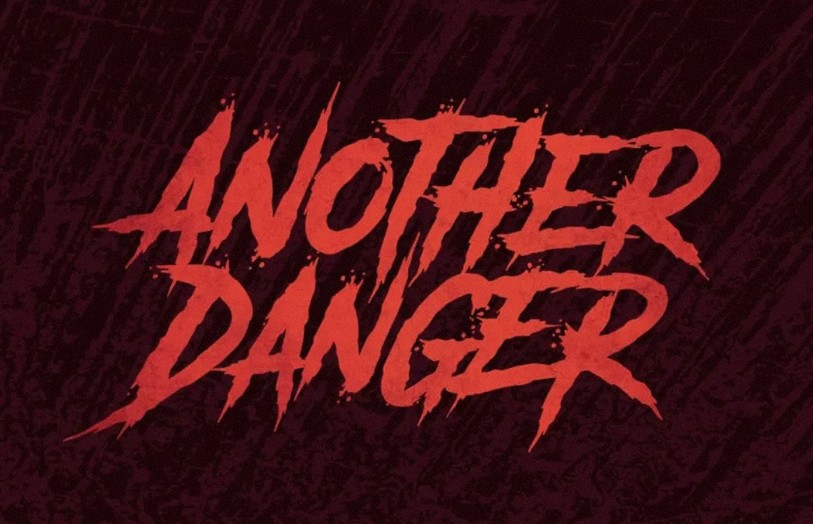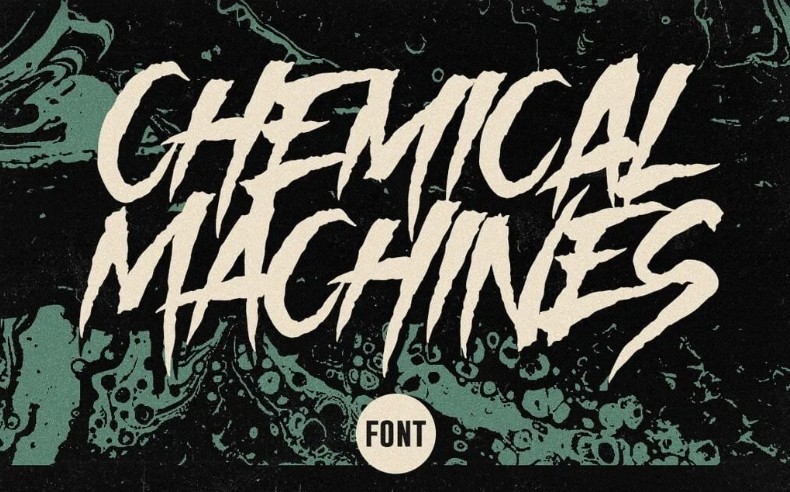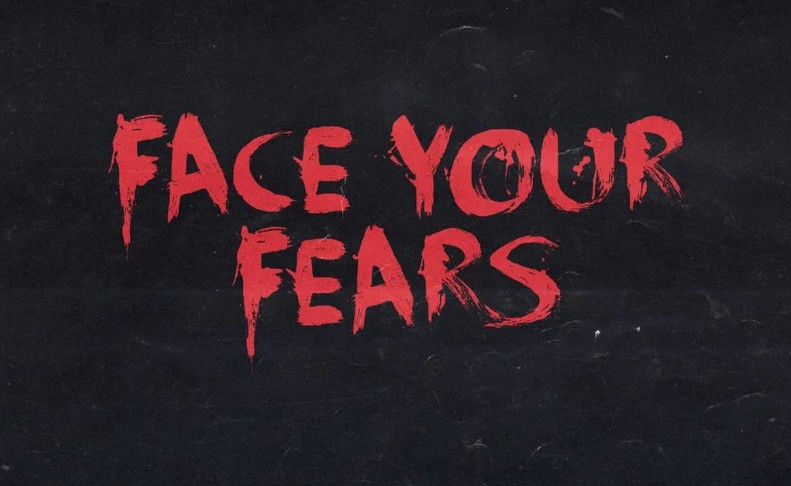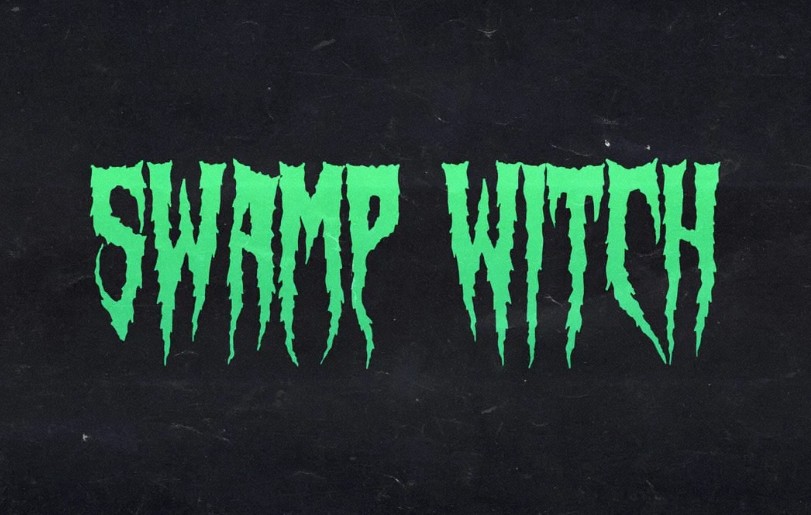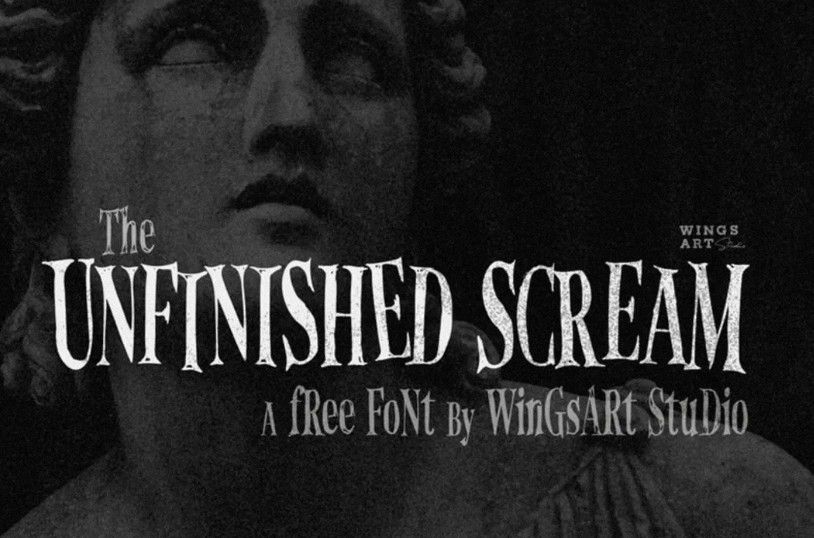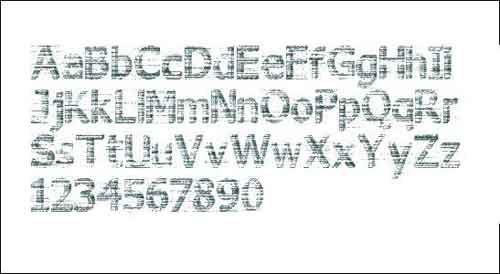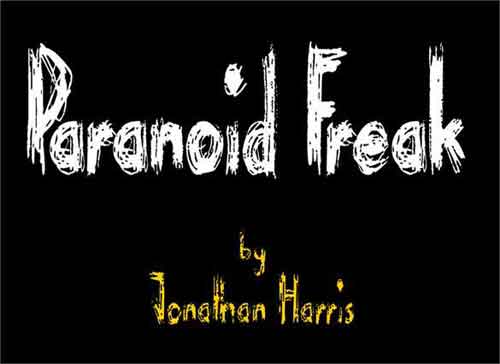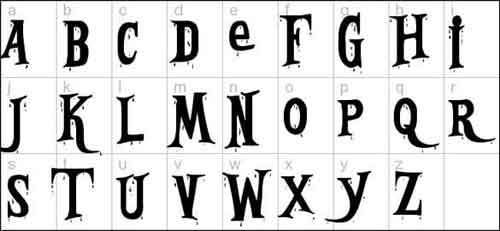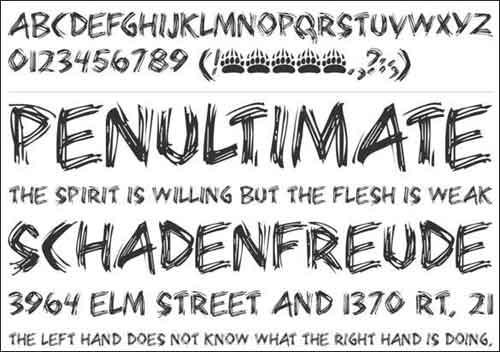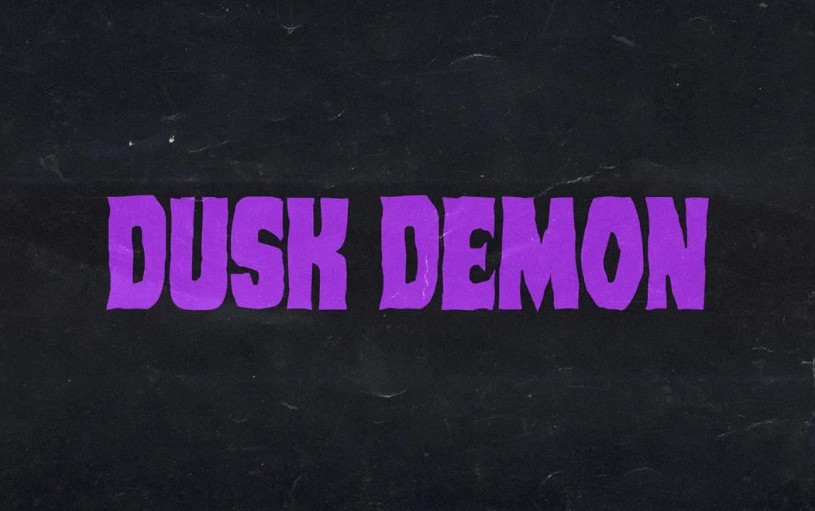
As the autumn season approaches, it’s the perfect time to get creative with your Halloween-themed designs! To make your life easier, we’ve curated a collection of 17 free Halloween fonts that are spooky, fun, and ready to elevate your seasonal projects.
Halloween fonts are essential for adding a creepy, festive touch to your designs. Whether you’re working on party invitations, flyers, posters, labels, or menus, the right typeface sets the mood and instantly communicates the Halloween spirit. From haunted handwritten styles to bold, horror-inspired typefaces, these fonts bring eerie charm and creative flair to your work.
• Combine spooky fonts with textured backgrounds or illustrations to enhance the overall design
1. Spooky Party Club Font
2. CF Haunted House Font
3. Paranoid Freak Font
4. Sketch Bones Font
5. Burton’s Dreams Font
This Alice in Wonderland font is available for non-commercial purposes only. Create legendary stories with this cute font this Halloween.
6. Death Branch Font
A rough and scary font perfect for your Halloween design this fall.
7. Bleeding Freaks Font
8. DK Mothman Font
A Halloween font with a spooky feel.
9. Bearpaw Font
Grunge font is perfect for headlines.
10. District Font
Grunge-embedded font that looks like a template.
11. Monsters Attack Font
12. Gommogravure Font
“Gommogravure” был создан в ответ на испанский mailartist.  Нарезанные ластики из 12  засечек, деревенские буквы  моноширинного стиля. Все буквы заглавные.
13. I Still Know Font
14. 3D Noise Font
15. D the Hero Font
16. Wooden Casket Font
Bloody font is perfect for Halloween. This font will remind you of vampires, bats and boxes.
17. Charons Obol font
18. Dusk Demon  font
19. Chemical Machines font
20. Another Danger Font
21. Face Your Fears Font
22. Stranger Back in the Night Font
23. Swamp Witch Font
24. Time Stop Font
25. Unfinished Scream